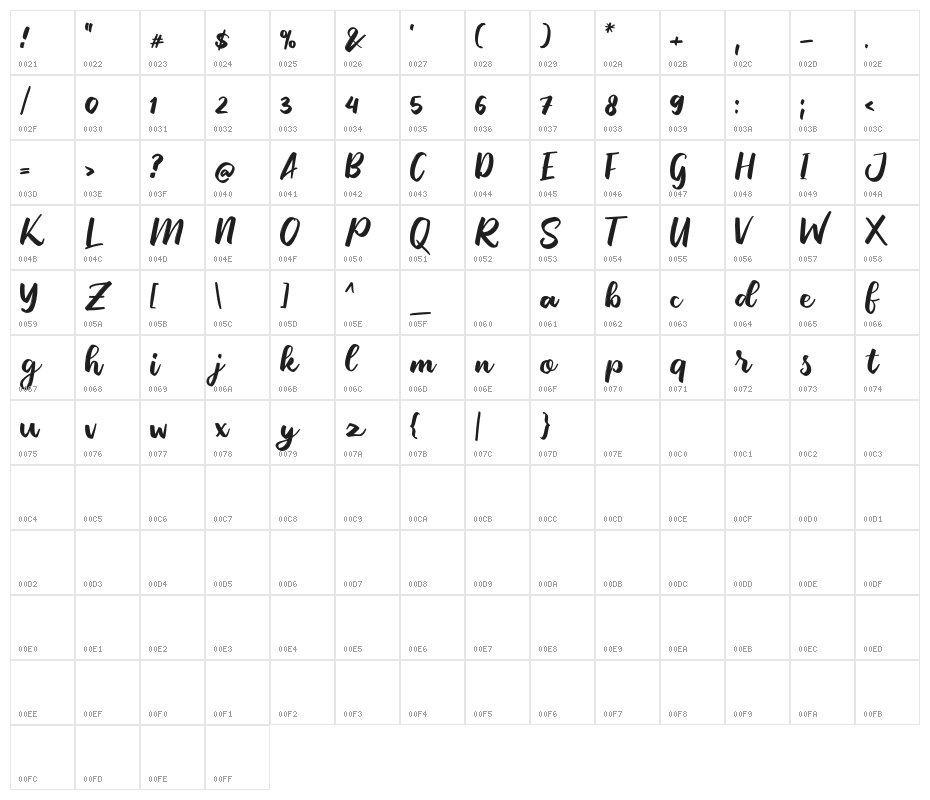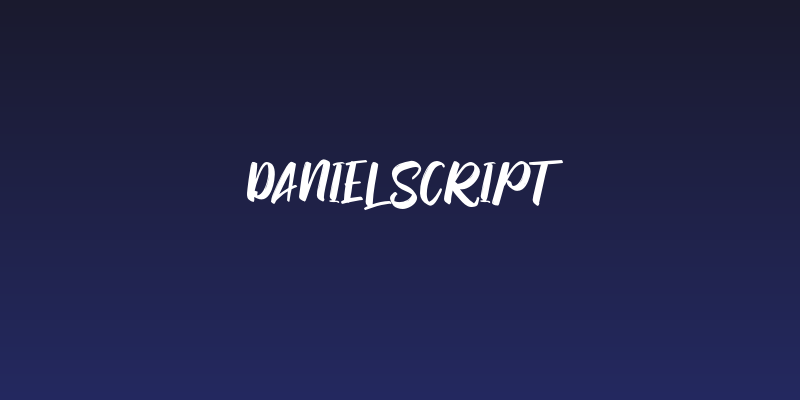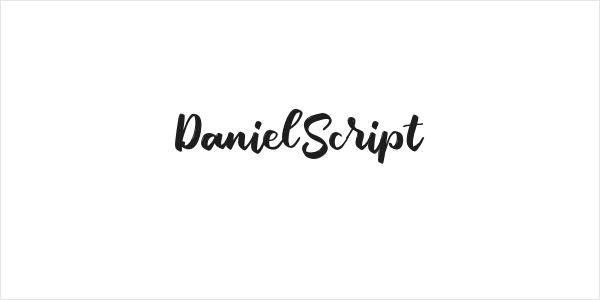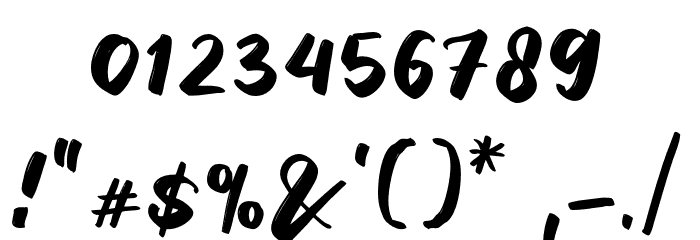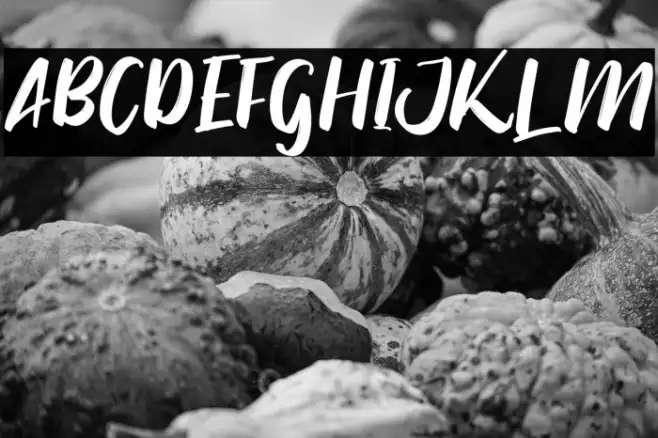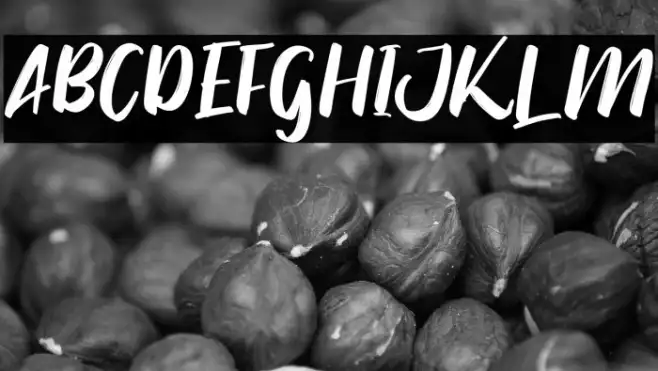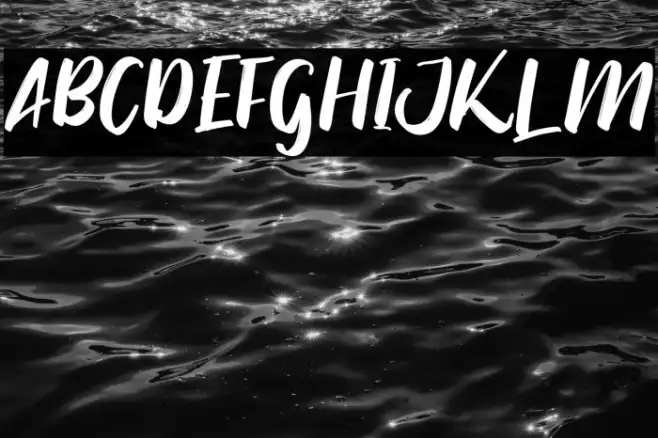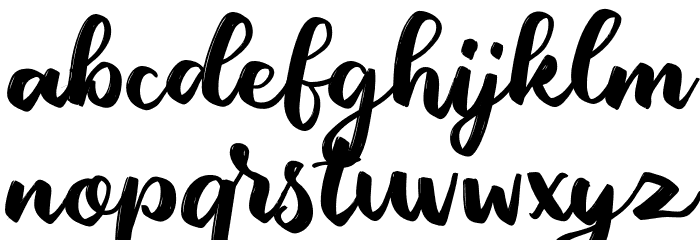
DanielScript Font
DanielScript Description
This font exudes a lively and expressive character, with its bold and fluid strokes that mimic the natural flow of handwriting. The letters are connected in a cursive style, creating a sense of movement and elegance. The uppercase letters are slightly more structured, while the lowercase letters maintain a playful and informal appearance. The numbers and special characters are consistent with the overall style, adding versatility to the font. The thick strokes and varying line widths contribute to a dynamic and eye-catching design, making it suitable for creative and artistic projects.
| Proposed Projects | Ideal for invitations, greeting cards, branding, and artistic projects that require a personal touch. |